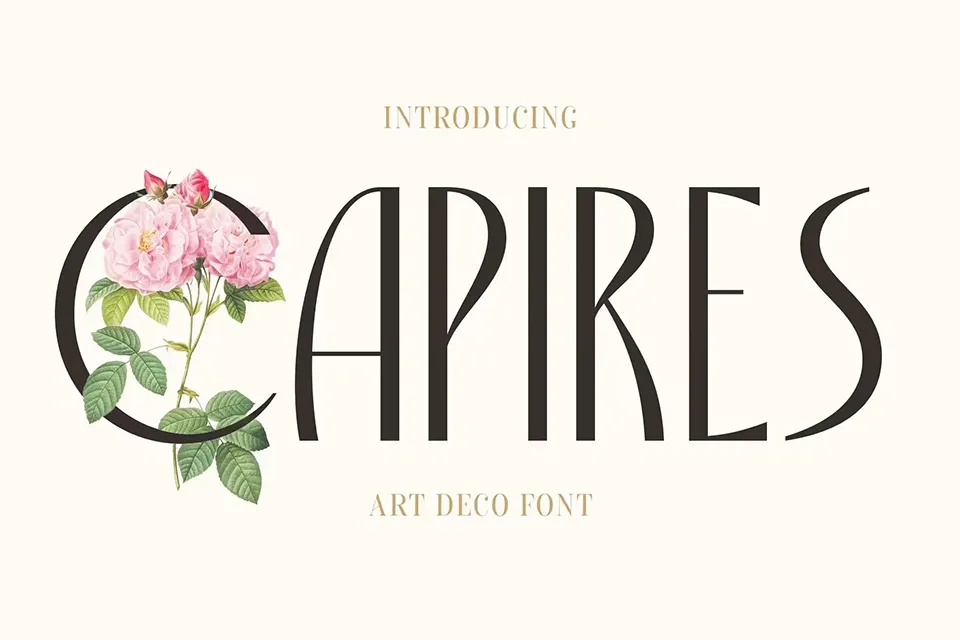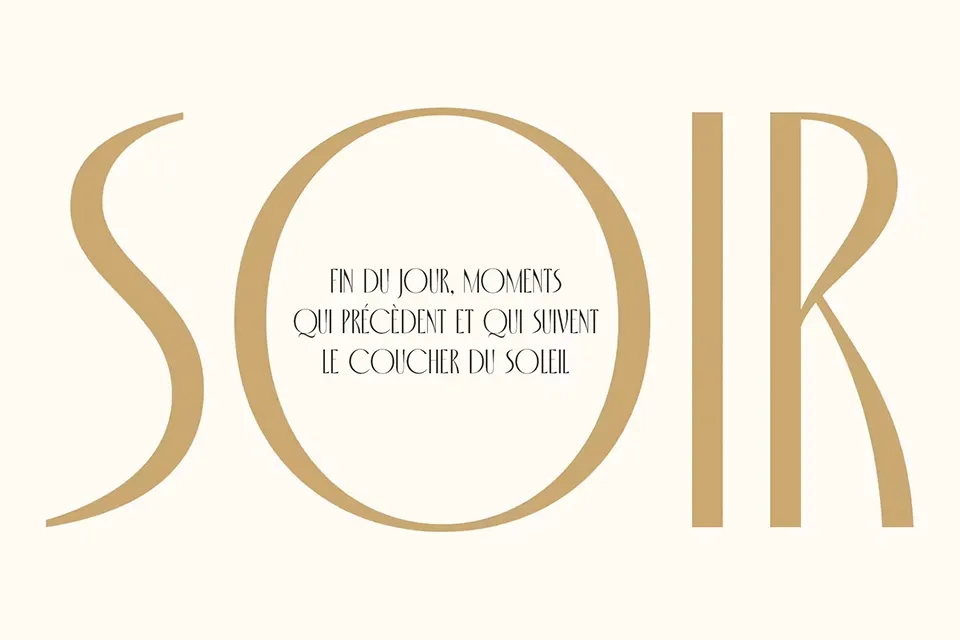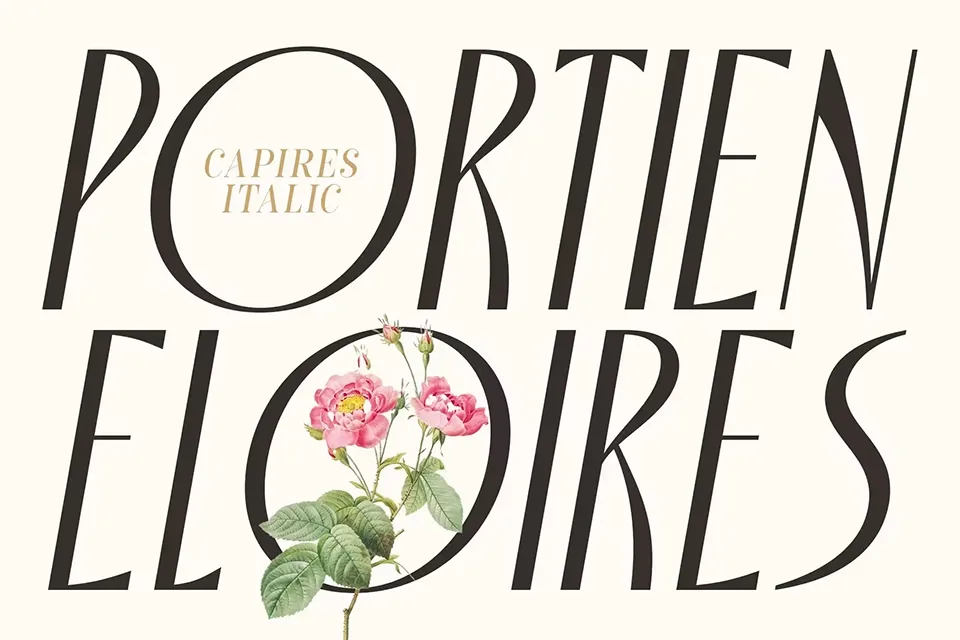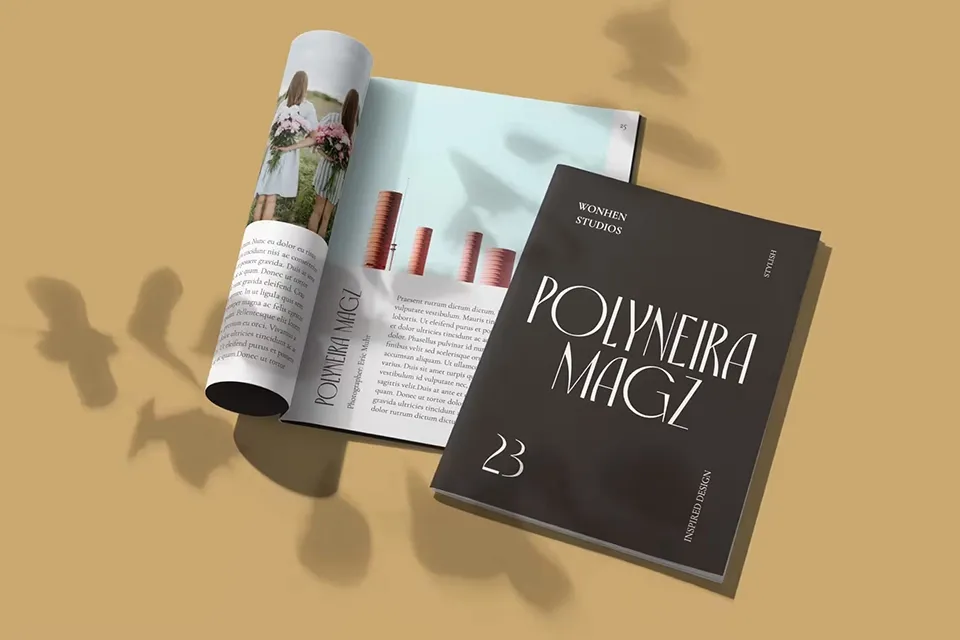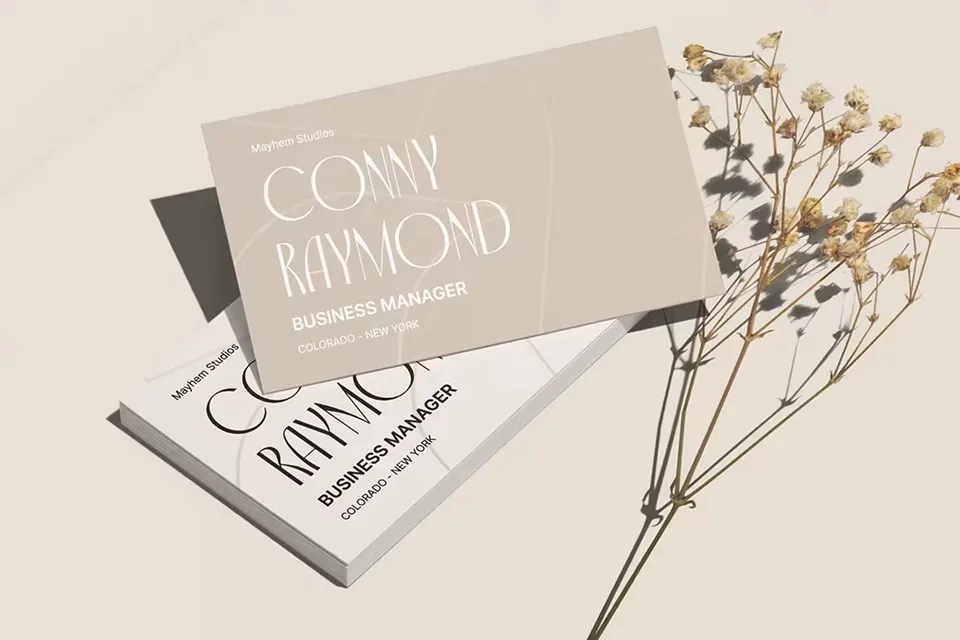
Capires Font
Capires Font is a captivating fusion of two iconic art movements, Art Deco and Art Nouveau, blended into a contemporary typeface that pays homage to the rich artistic heritage of both styles. This font beautifully combines the geometric precision of Art Deco with the intricate, organic motifs of Art Nouveau, resulting in a harmonious masterpiece of design. Capires is perfect for projects that demand a unique and mesmerizing synthesis of these two influential art movements, bringing a sense of timeless elegance and artistic richness to branding, packaging, or editorial design. With Capires, your designs seamlessly bridge the gap between past and present, making it an exceptional choice for capturing both geometric refinement and ornamental beauty in your creative work.